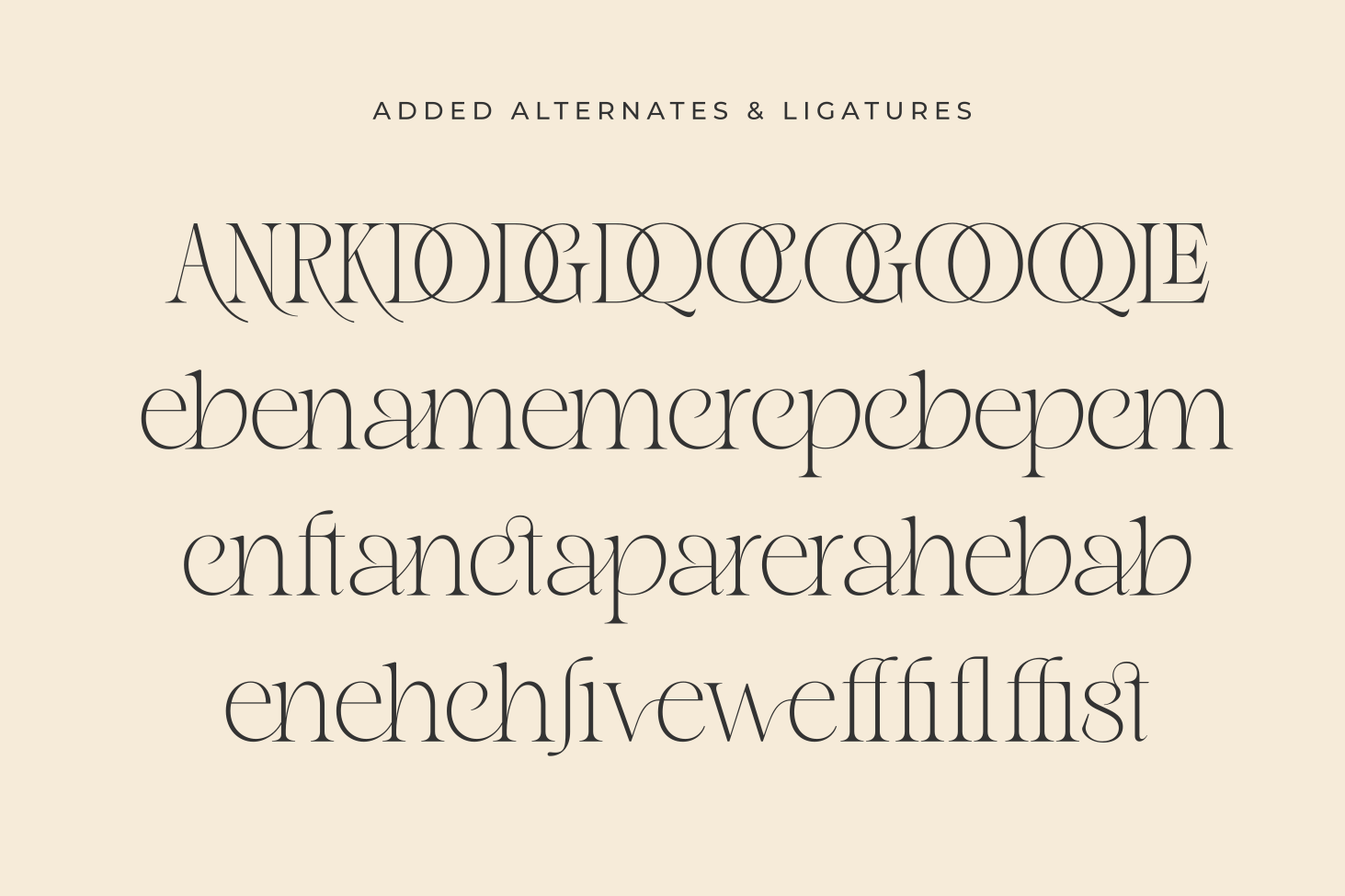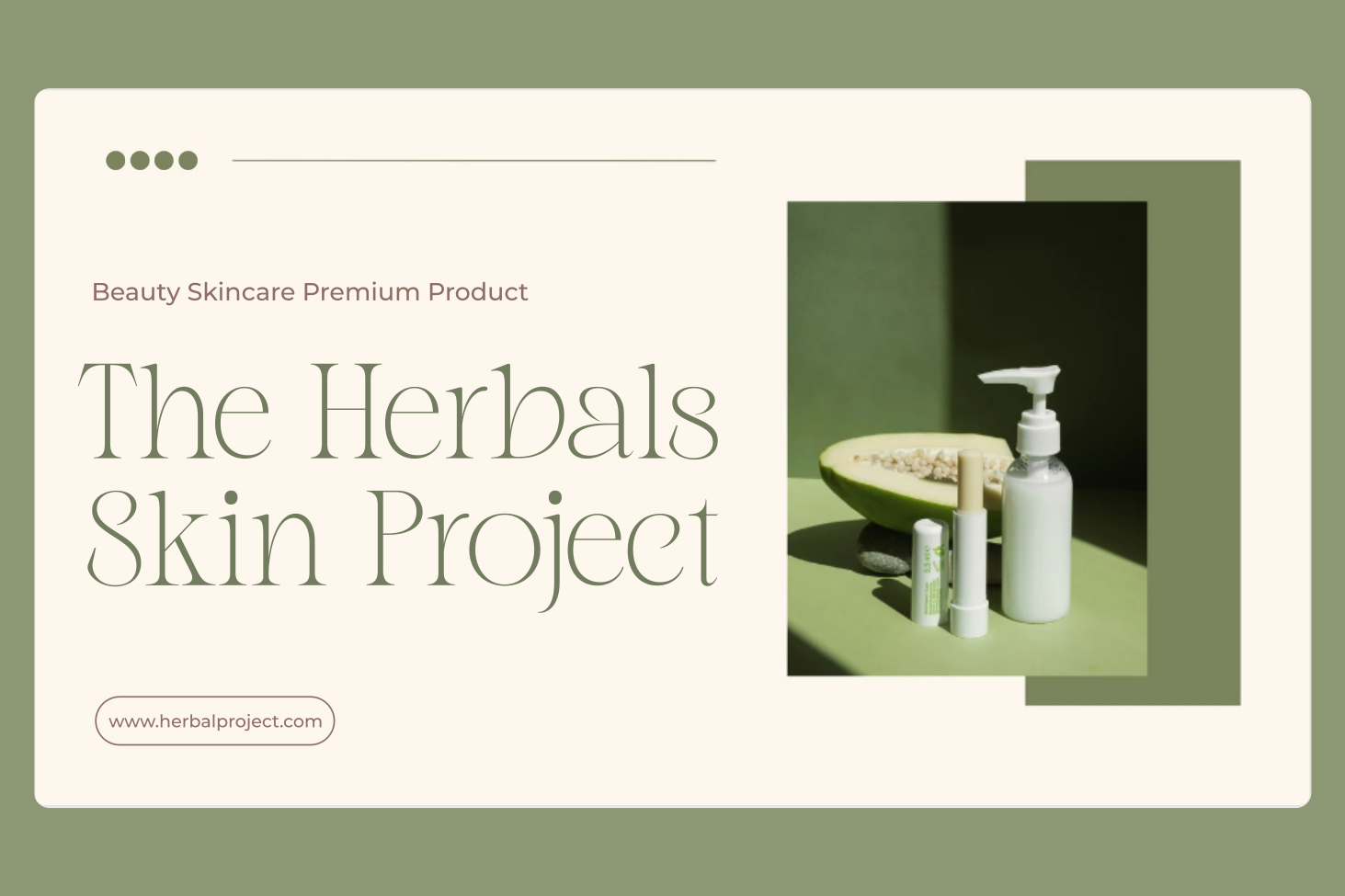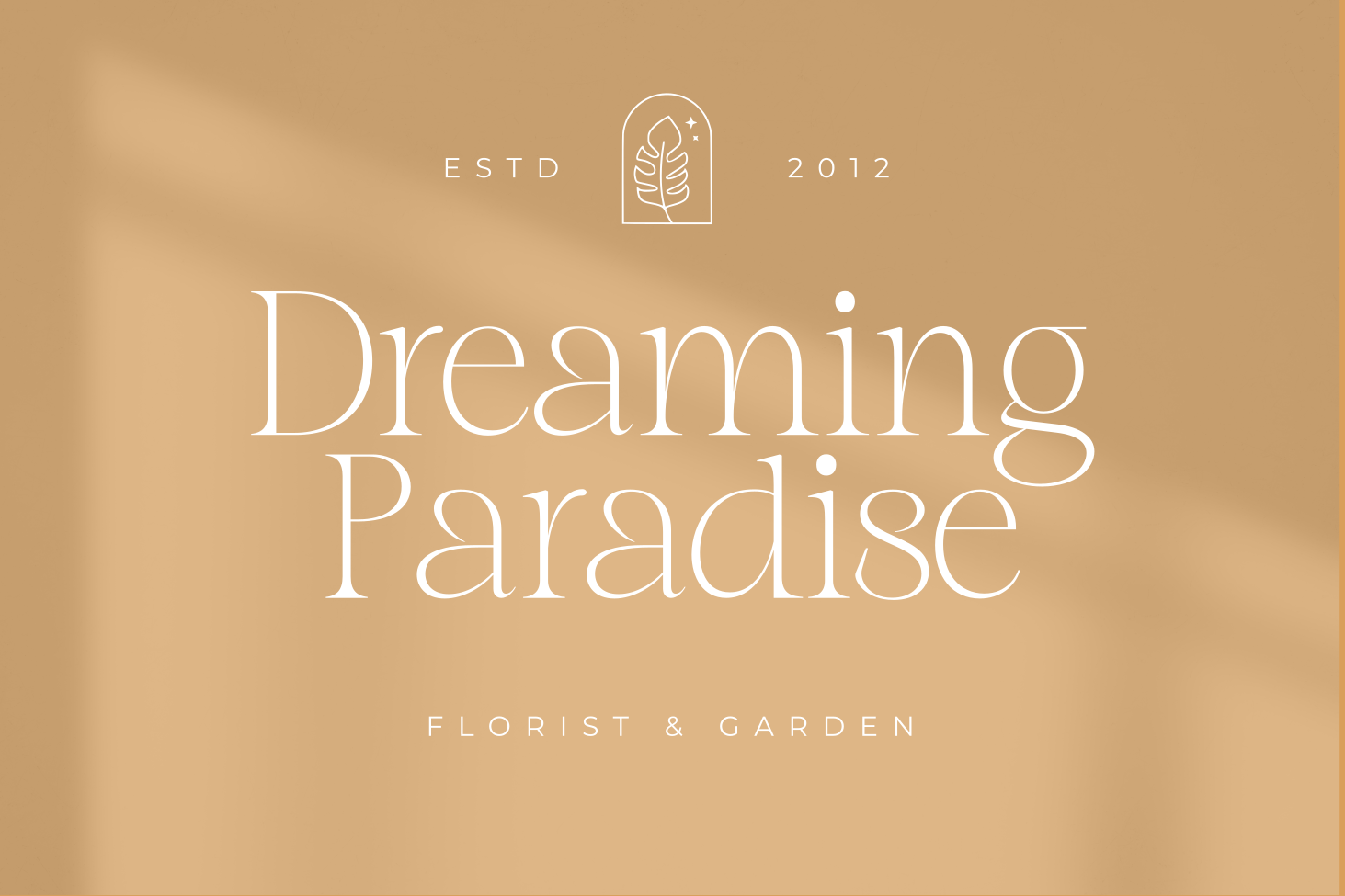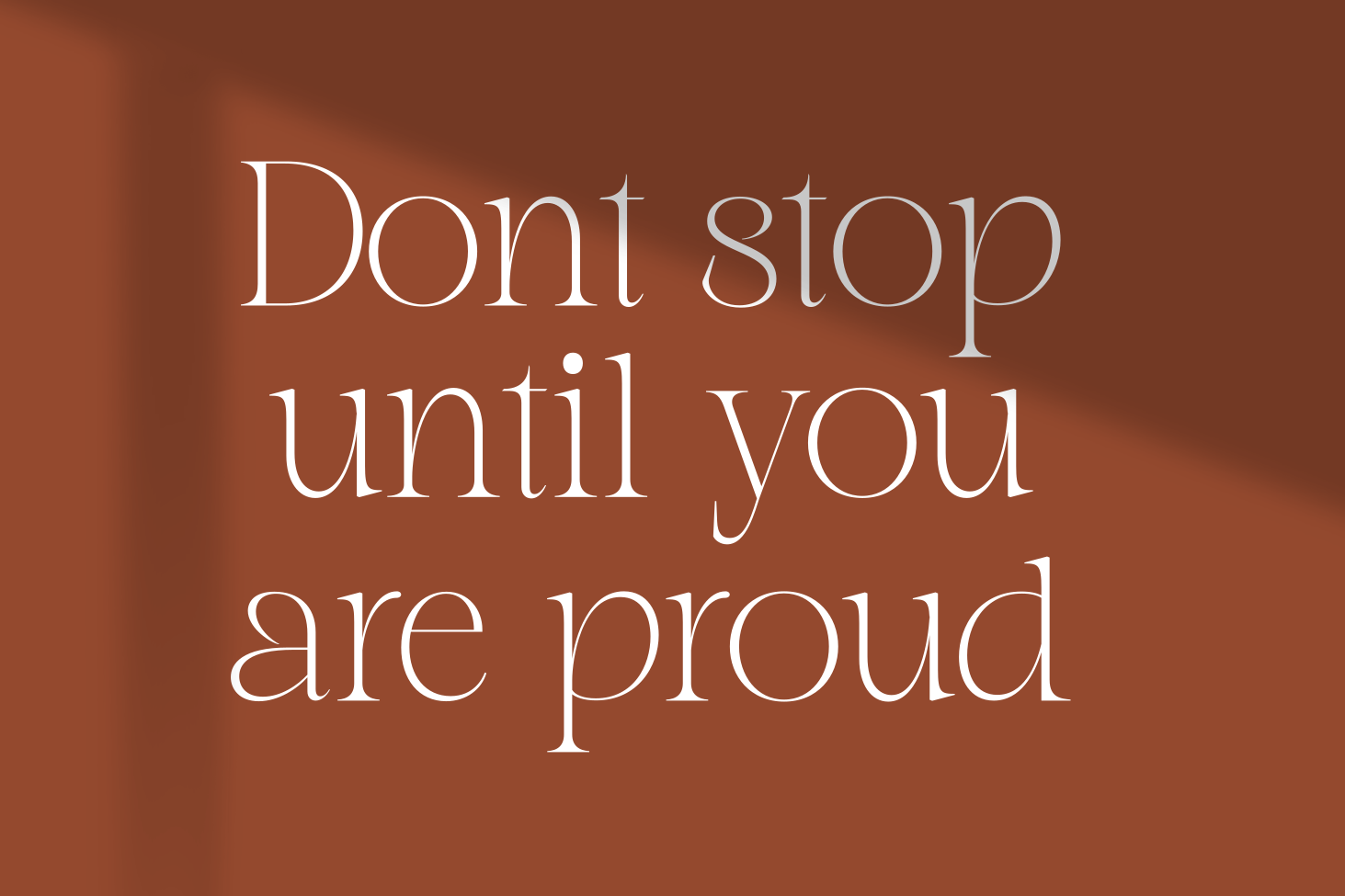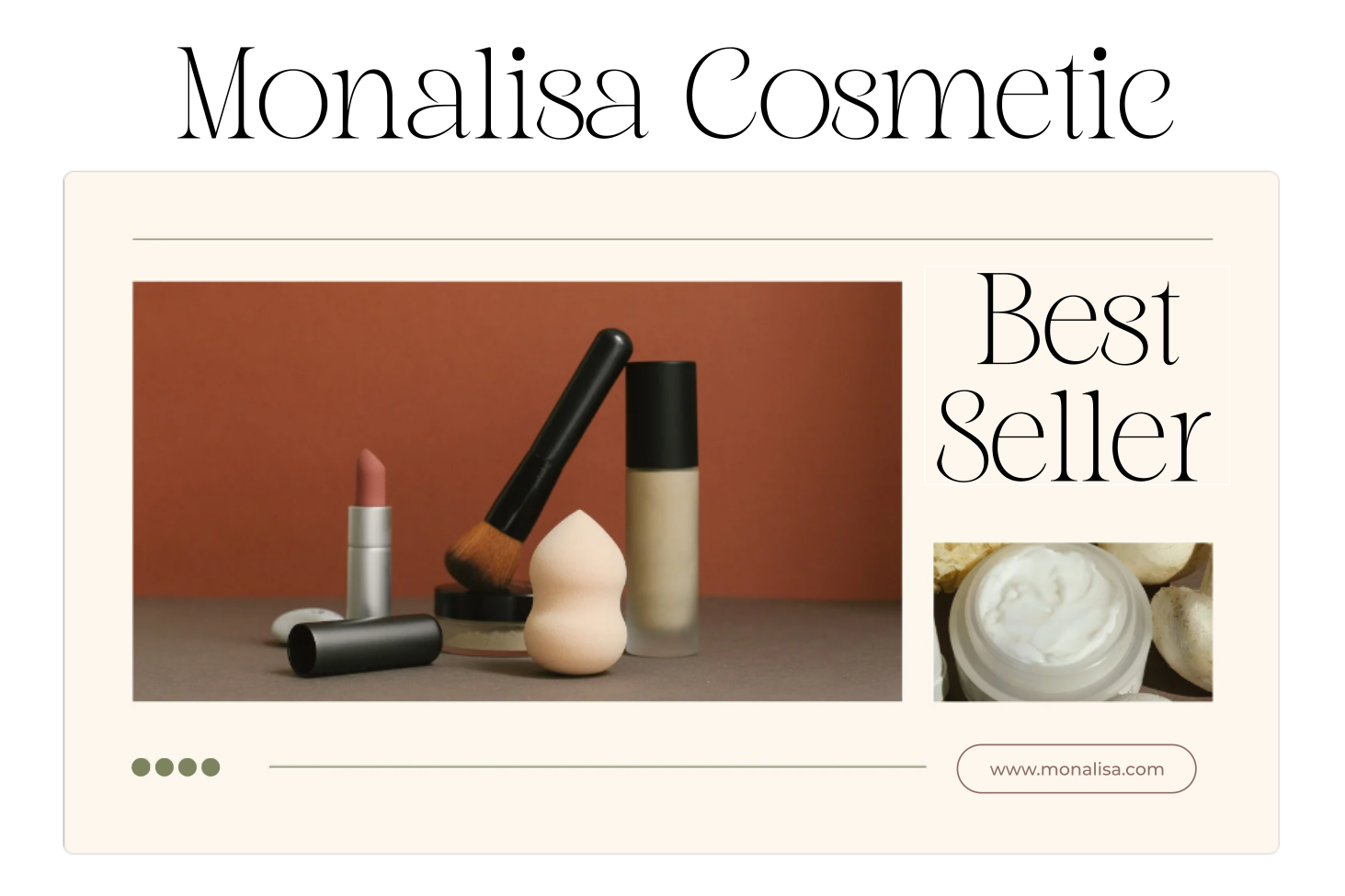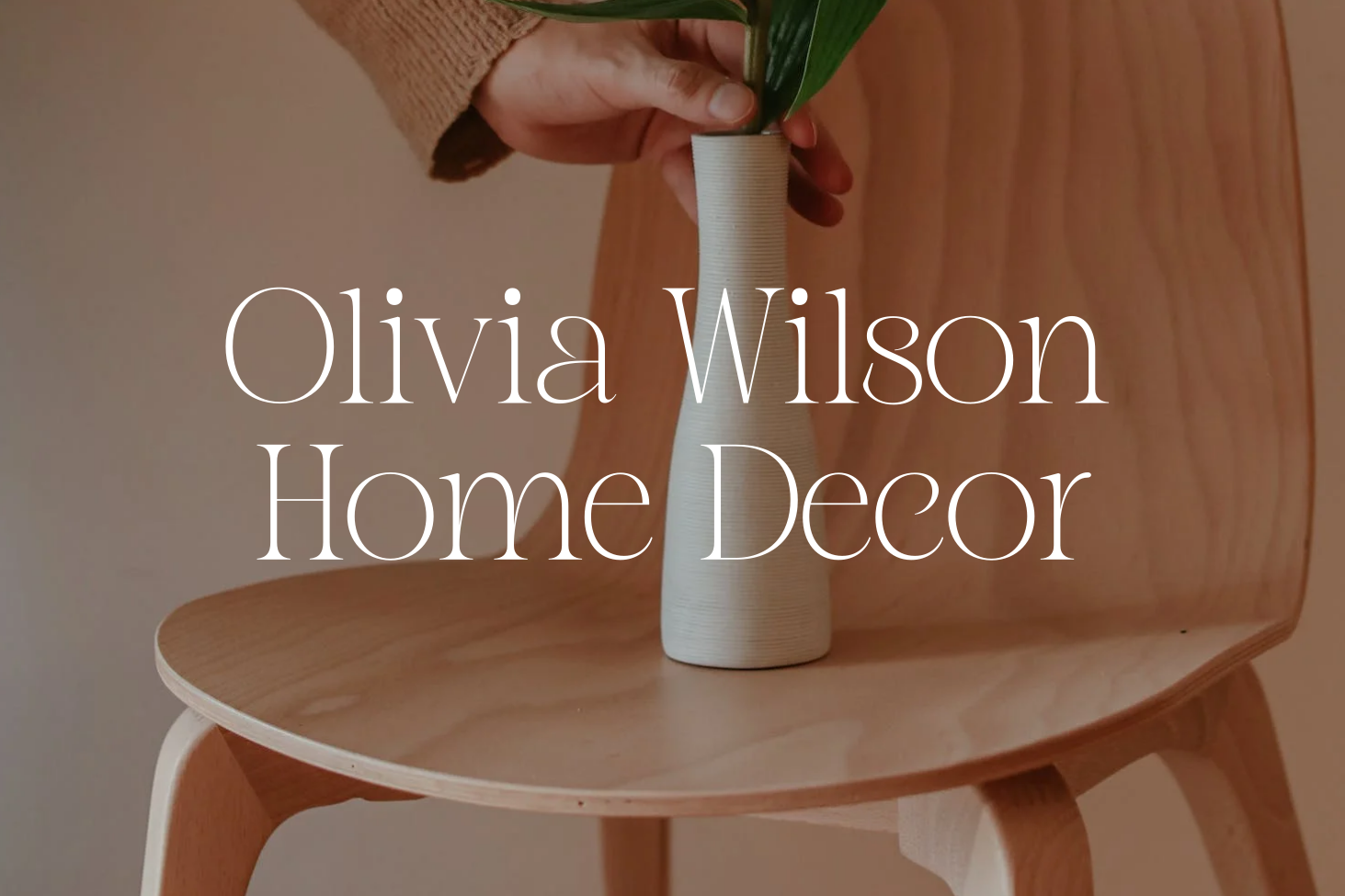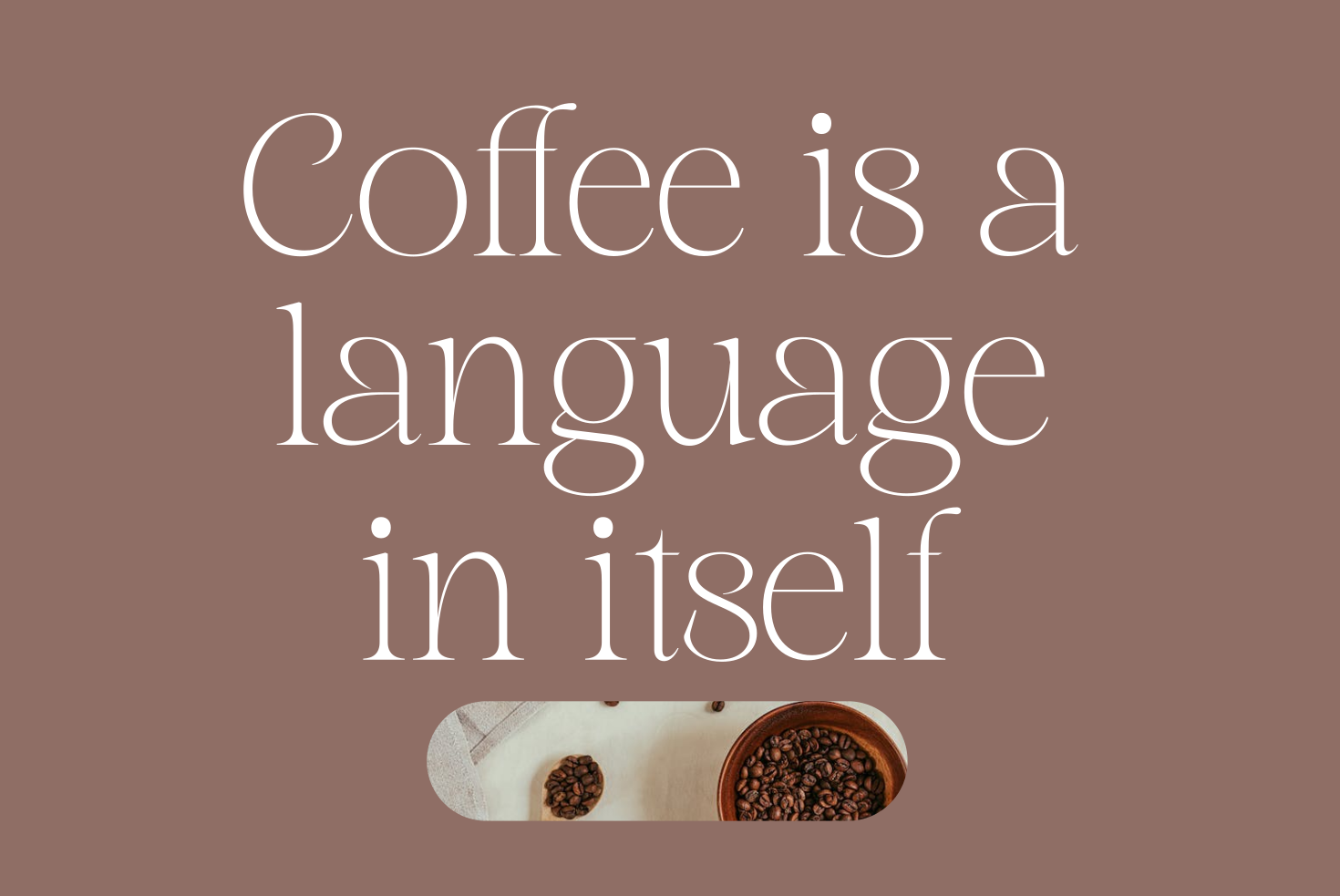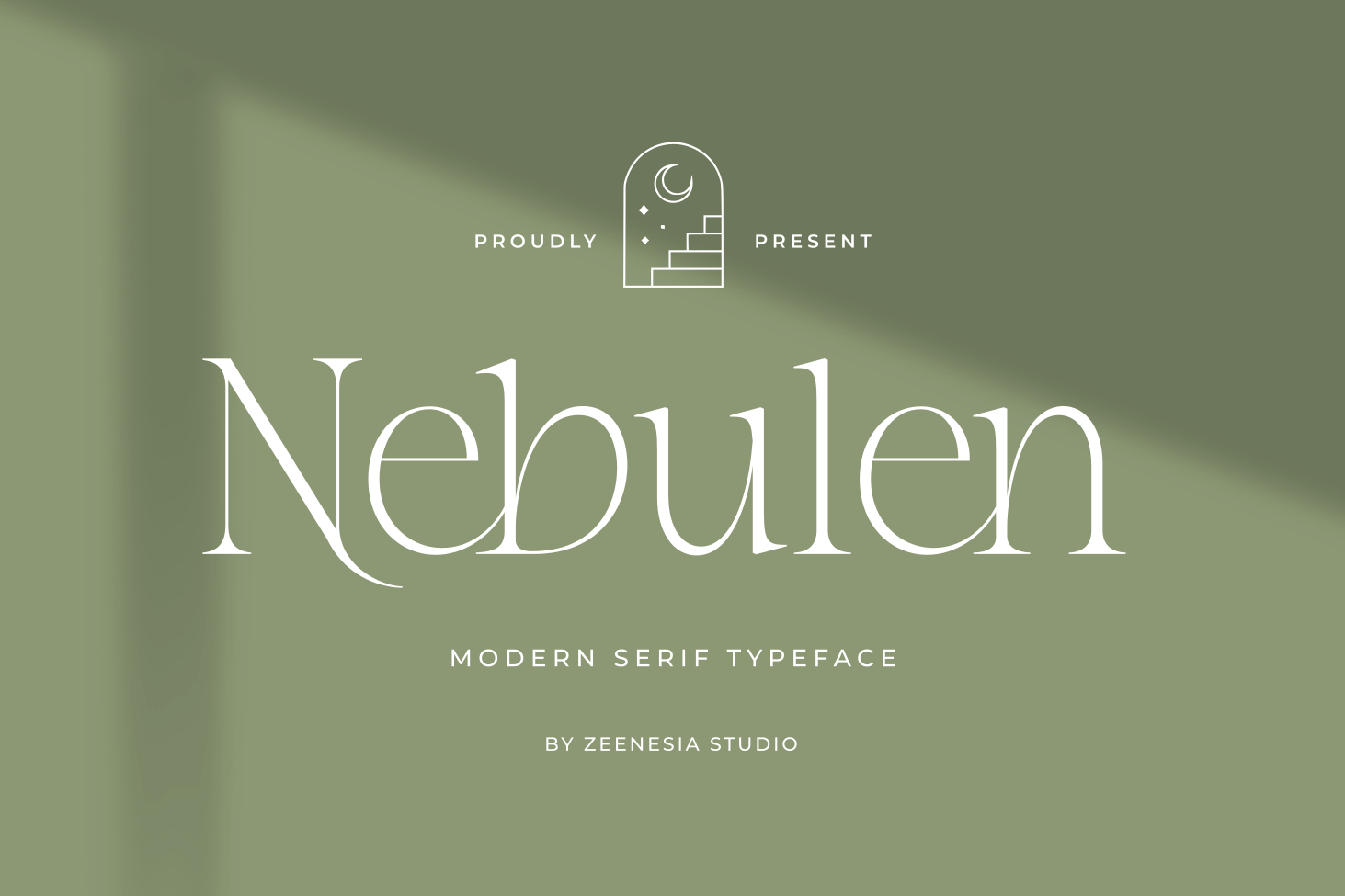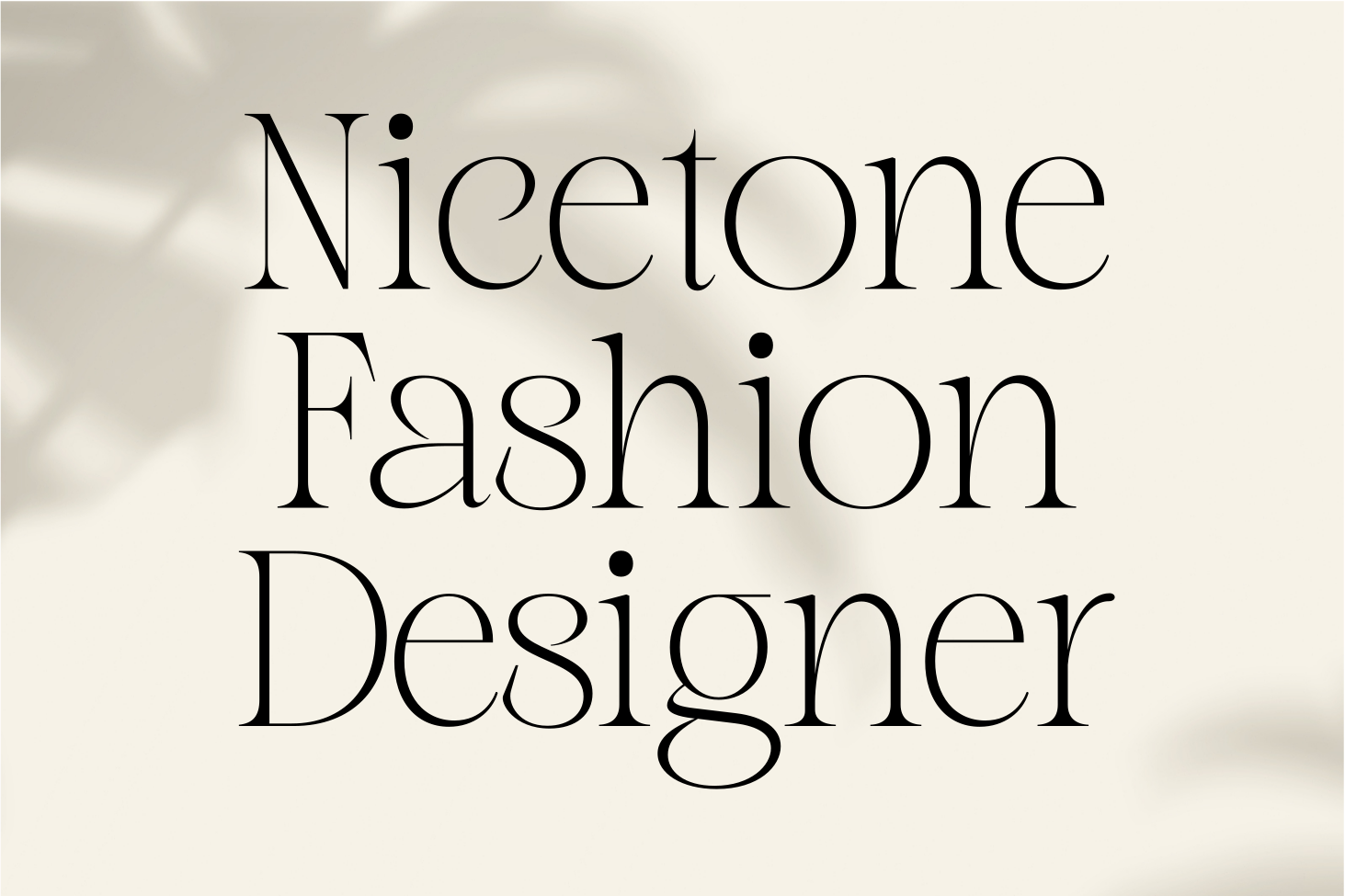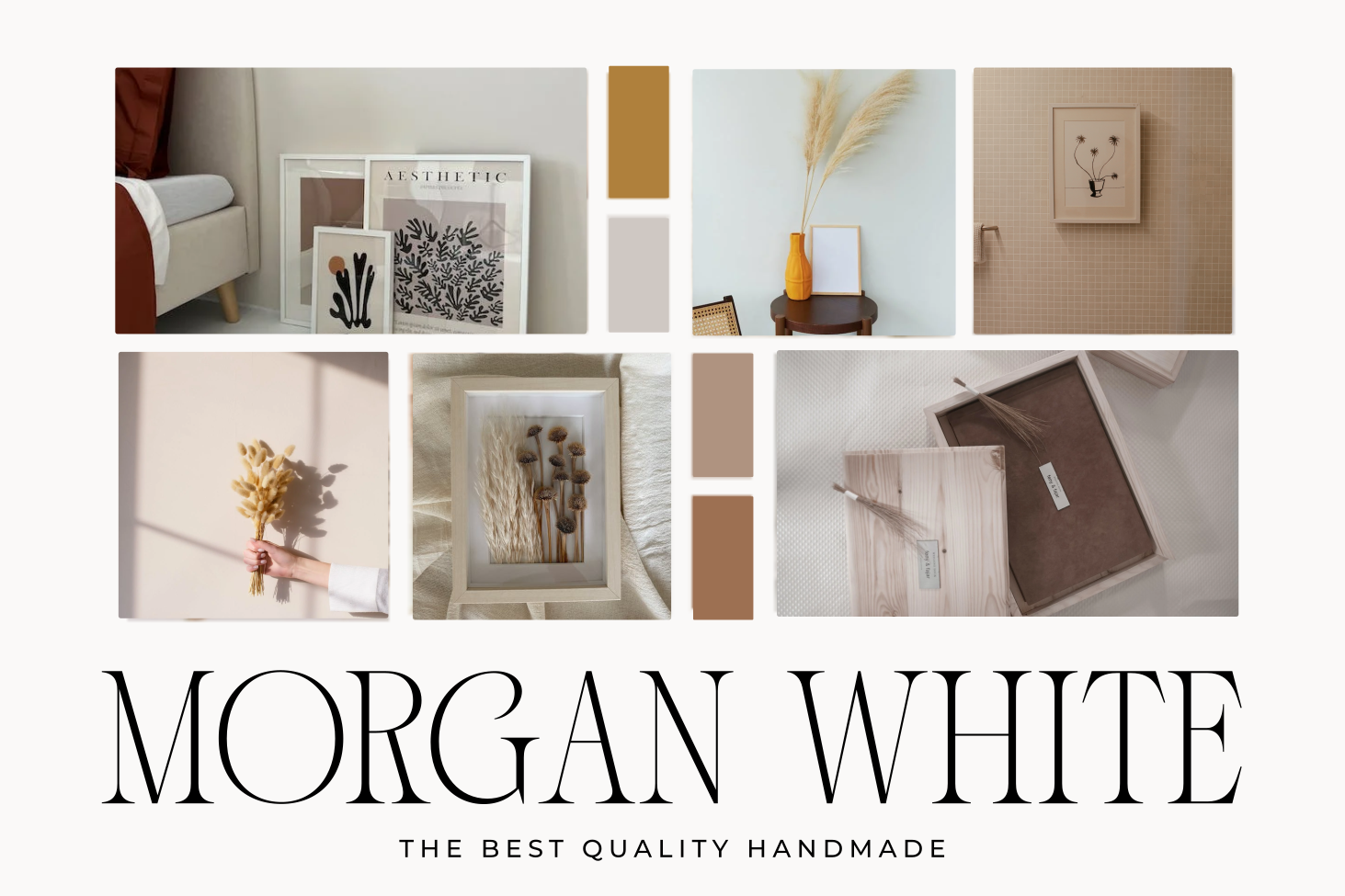
Nebulen
Nebulen by zeenesia is a beautiful and feminine serif font created by a romantic and lovely look. Nebulen was built with Open Type features, stylistic Alternate and Ligature makes your project will be awesome